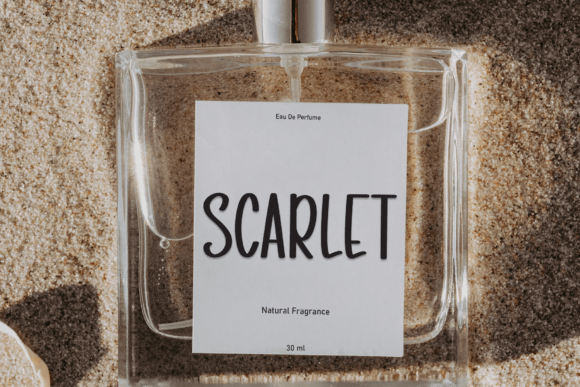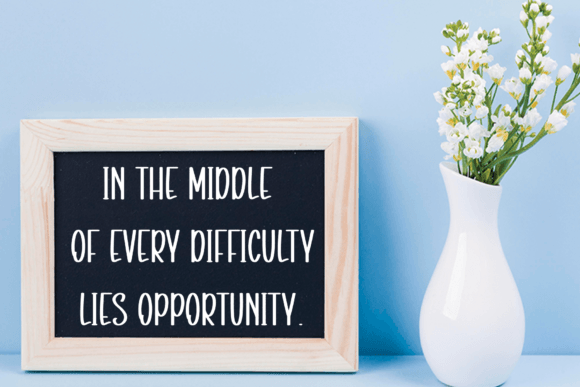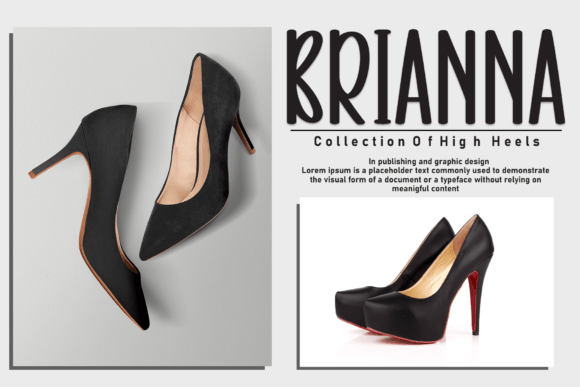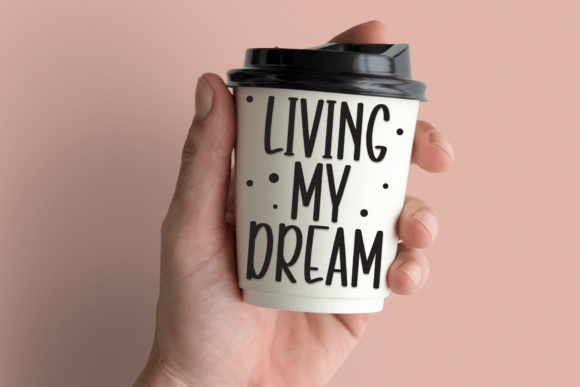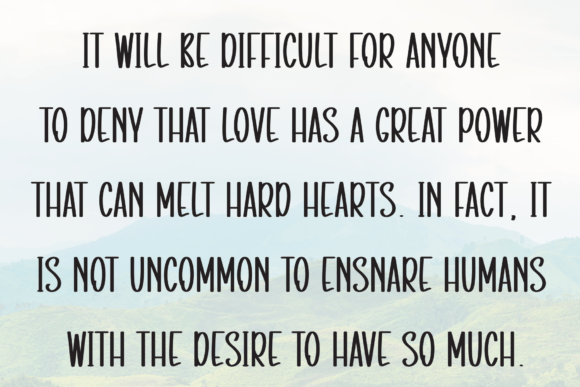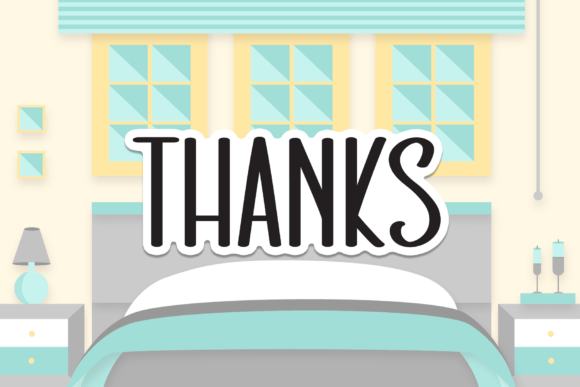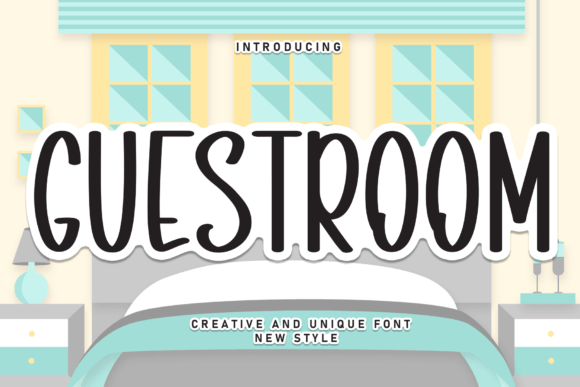
Introducing Guestroom Font: The Sweet and Friendly Handwritten Display Font
Are you looking for a font that can add a touch of warmth and personality to your designs? Look no further than Guestroom Font, a sweet and friendly handwritten display font that’s perfect for creating unique and eye-catching designs. In this article, we’ll take a closer look at Guestroom Font, its features, and how you can use it to elevate your designs.
What is Guestroom Font?
Guestroom Font is a beautiful handwritten display font that’s designed to bring a touch of sweetness and friendliness to your designs. With its cute and fun style, this font is ideal for writing wedding invitations, cards, or any other design that might need a fun touch. Whether you’re a designer, crafter, or DIY enthusiast, Guestroom Font is a great addition to your font collection.
Key Features of Guestroom Font
• Handwritten style: Guestroom Font has a beautiful handwritten style that’s perfect for creating personal and unique designs.
• Sweet and friendly: This font has a sweet and friendly tone that’s ideal for designs that require a touch of warmth and personality.
• Cute and fun: Guestroom Font is a cute and fun font that’s perfect for designs that require a playful touch.
• Display font: This font is designed as a display font, making it perfect for headlines, titles, and other design elements that require a bold and eye-catching font.
Use Cases for Guestroom Font
Guestroom Font is a versatile font that can be used in a variety of design projects. Here are some use cases where this font shines:
• Wedding invitations: Guestroom Font is perfect for writing beautiful and unique wedding invitations that set the tone for the big day.
• Cards and stationery: This font is great for creating personalized cards and stationery that require a touch of warmth and personality.
• DIY projects: Guestroom Font is ideal for DIY enthusiasts who want to create unique and personalized designs for their projects.
• Branding and packaging: This font can also be used for branding and packaging designs that require a friendly and approachable tone.
Tips for Using Guestroom Font
Here are some tips for using Guestroom Font in your designs:
• Use it as a headline font: Guestroom Font is perfect for headlines and titles, so use it to create bold and eye-catching design elements.
• Pair it with other fonts: This font pairs well with other fonts, so experiment with different combinations to create unique and interesting designs.
• Use it in digital designs: Guestroom Font can be used in digital designs, such as social media graphics, blog posts, and email newsletters.
Guestroom Font is a sweet and friendly handwritten display font that’s perfect for designers, crafters, and DIY enthusiasts. With its cute and fun style, this font is ideal for writing wedding invitations, cards, or any other design that might need a fun touch. Whether you’re looking to create unique and personalized designs or add a touch of warmth and personality to your designs, Guestroom Font is a great choice.
In conclusion, Guestroom Font is a beautiful and versatile font that’s perfect for adding a touch of sweetness and friendliness to your designs. With its cute and fun style, this font is ideal for a variety of design projects, from wedding invitations to DIY projects. So why not give Guestroom Font a try and see how it can elevate your designs?